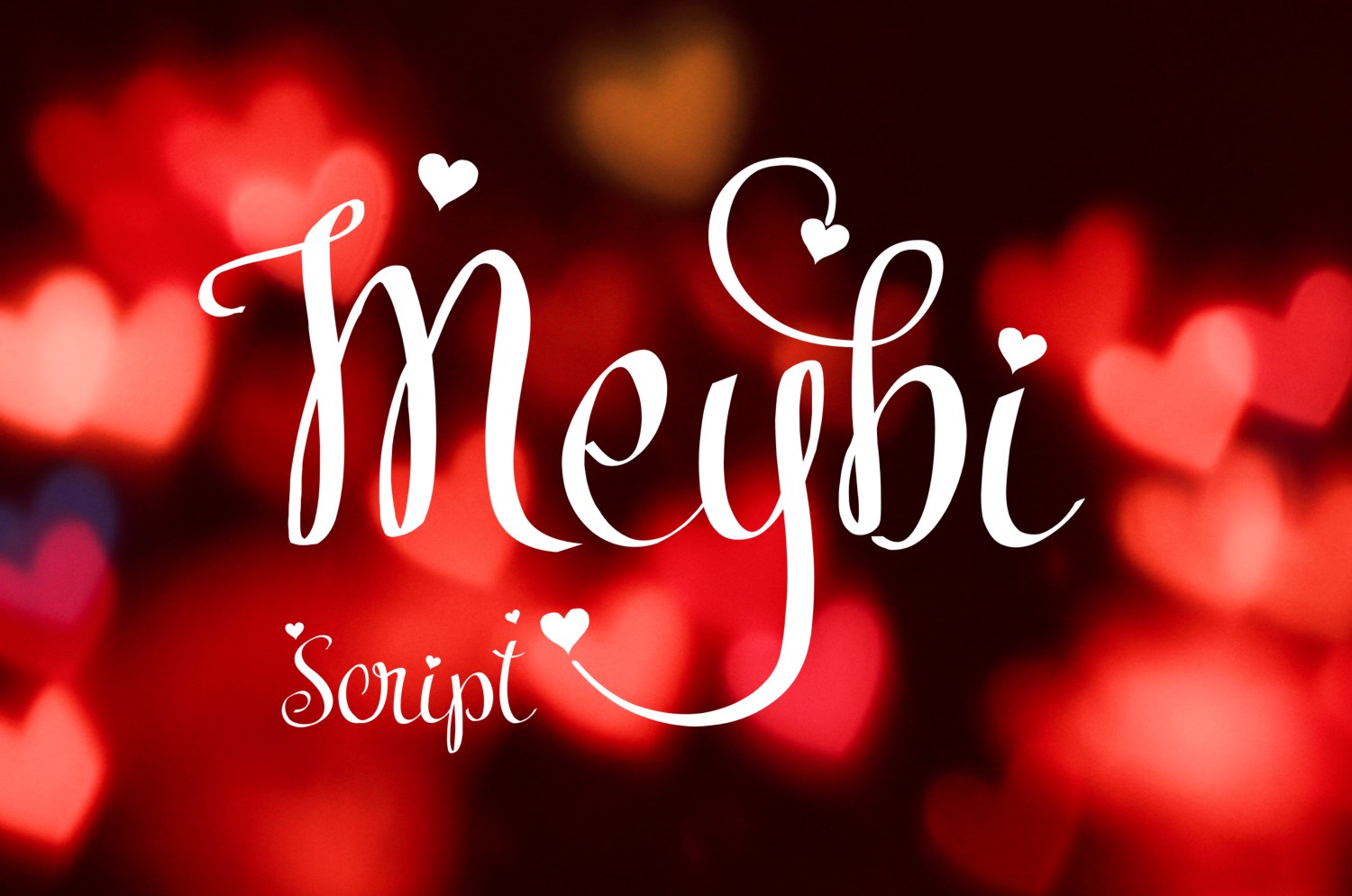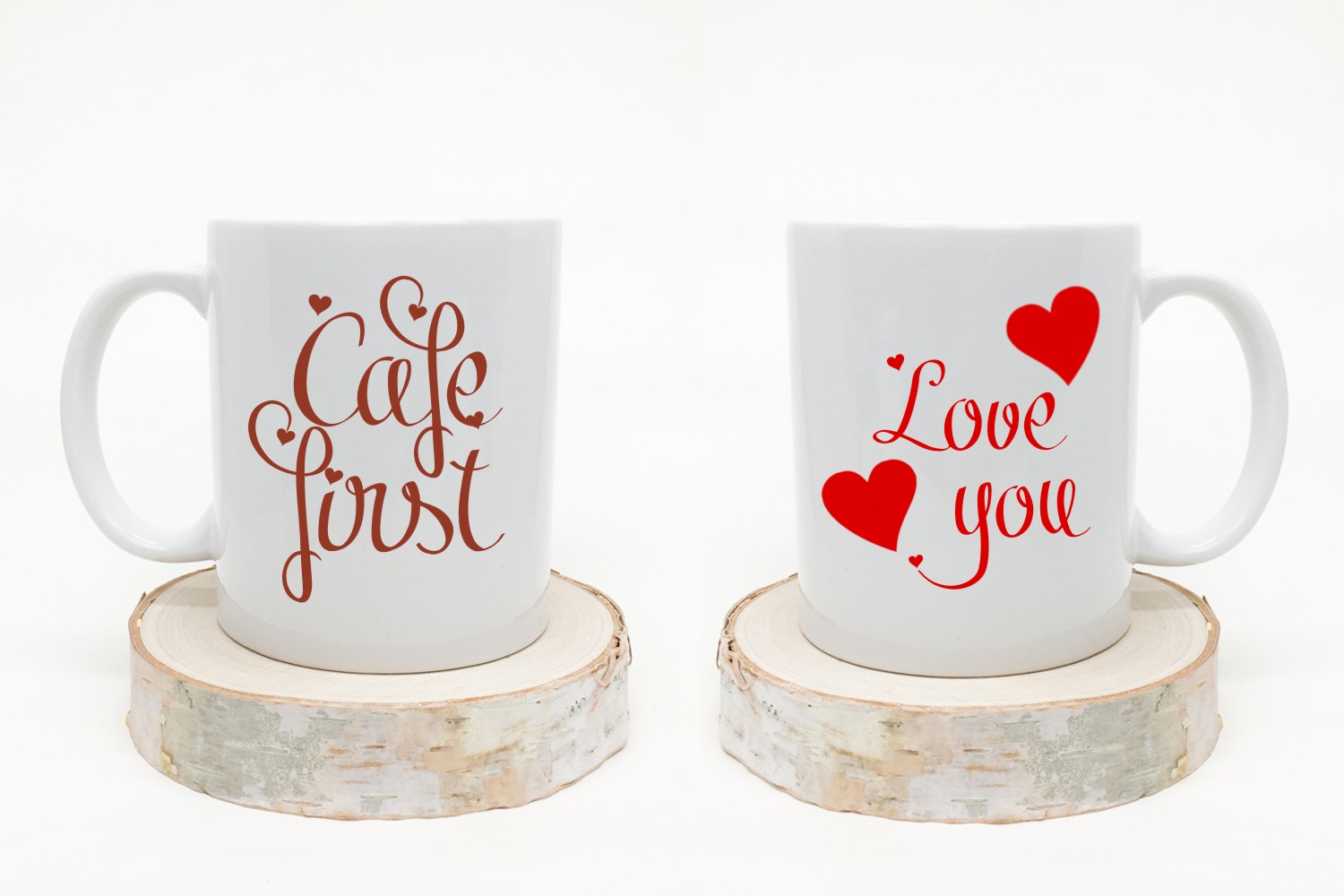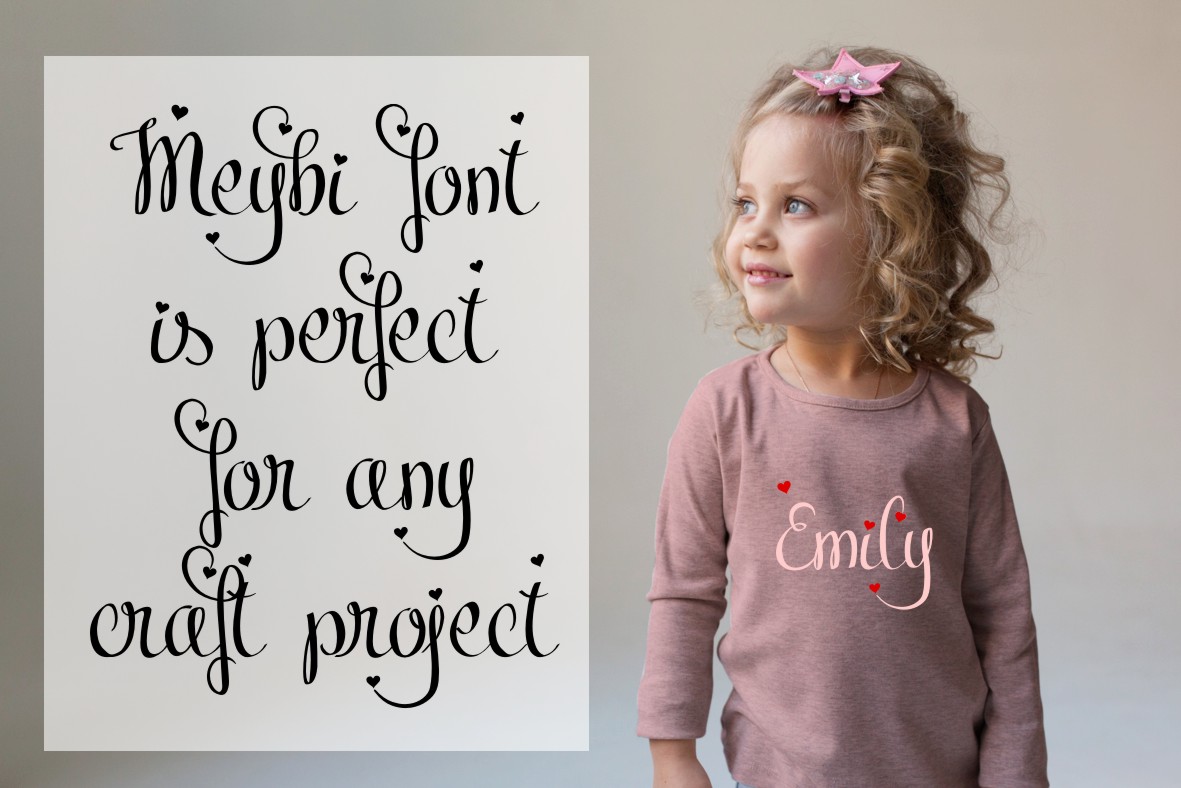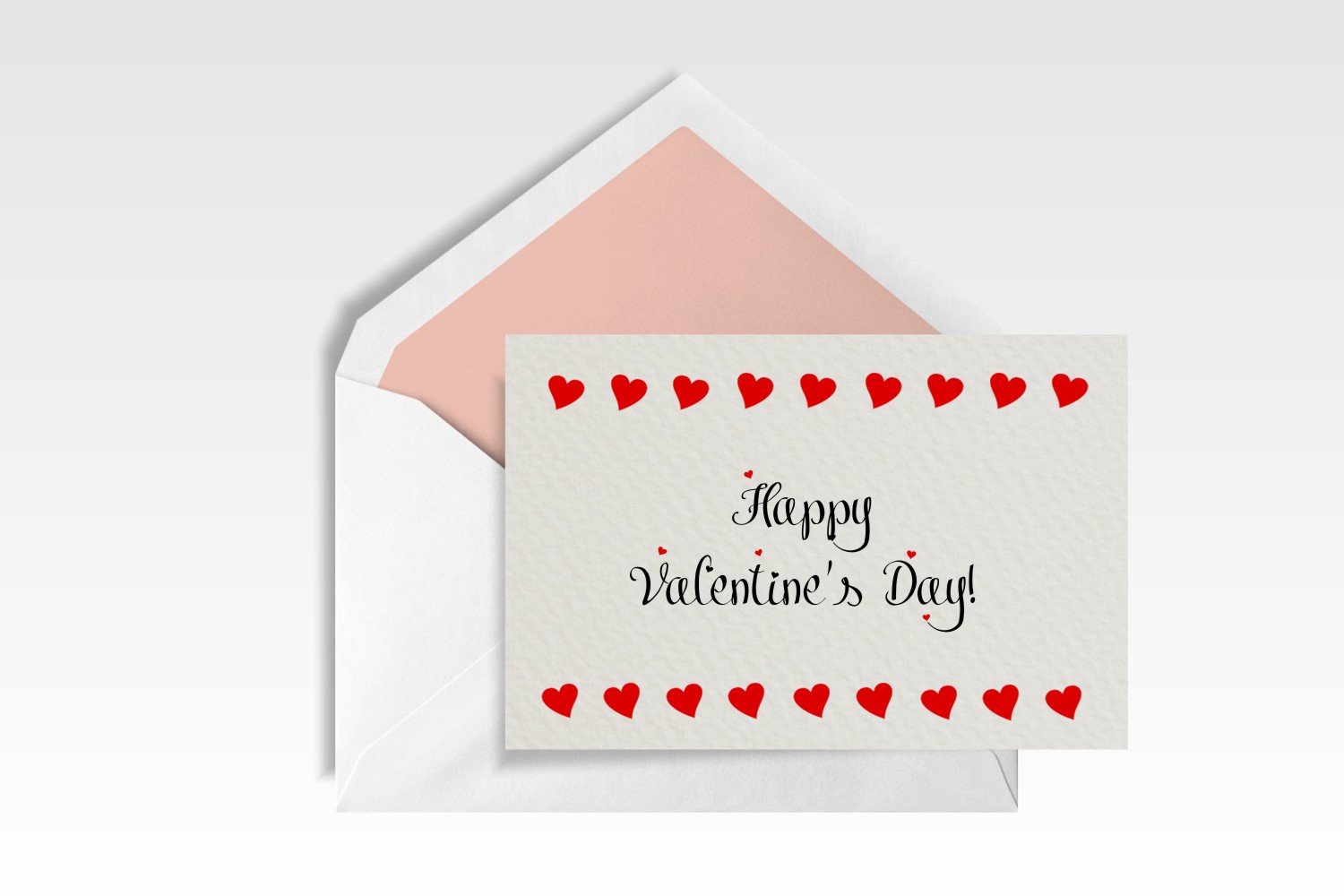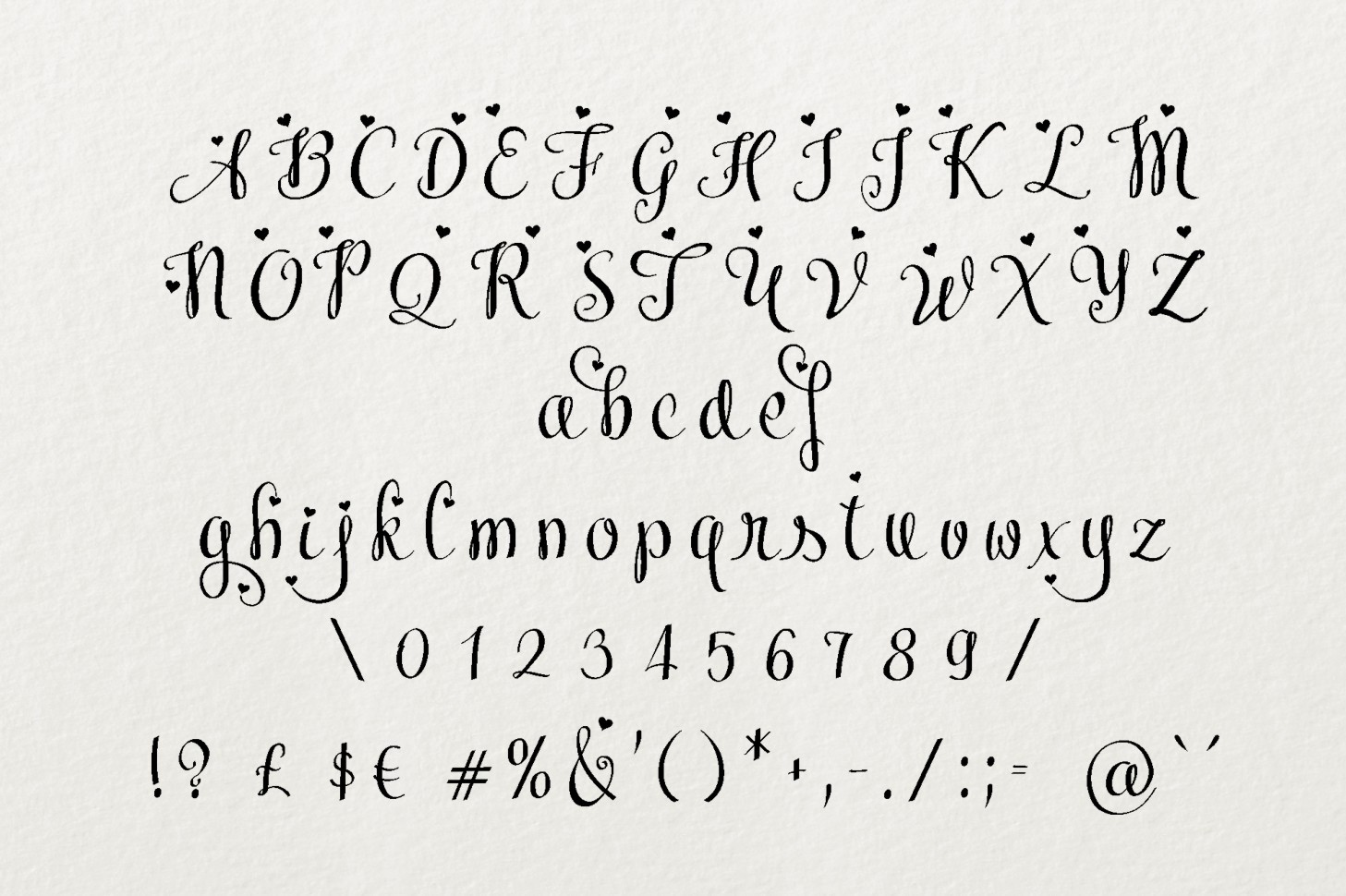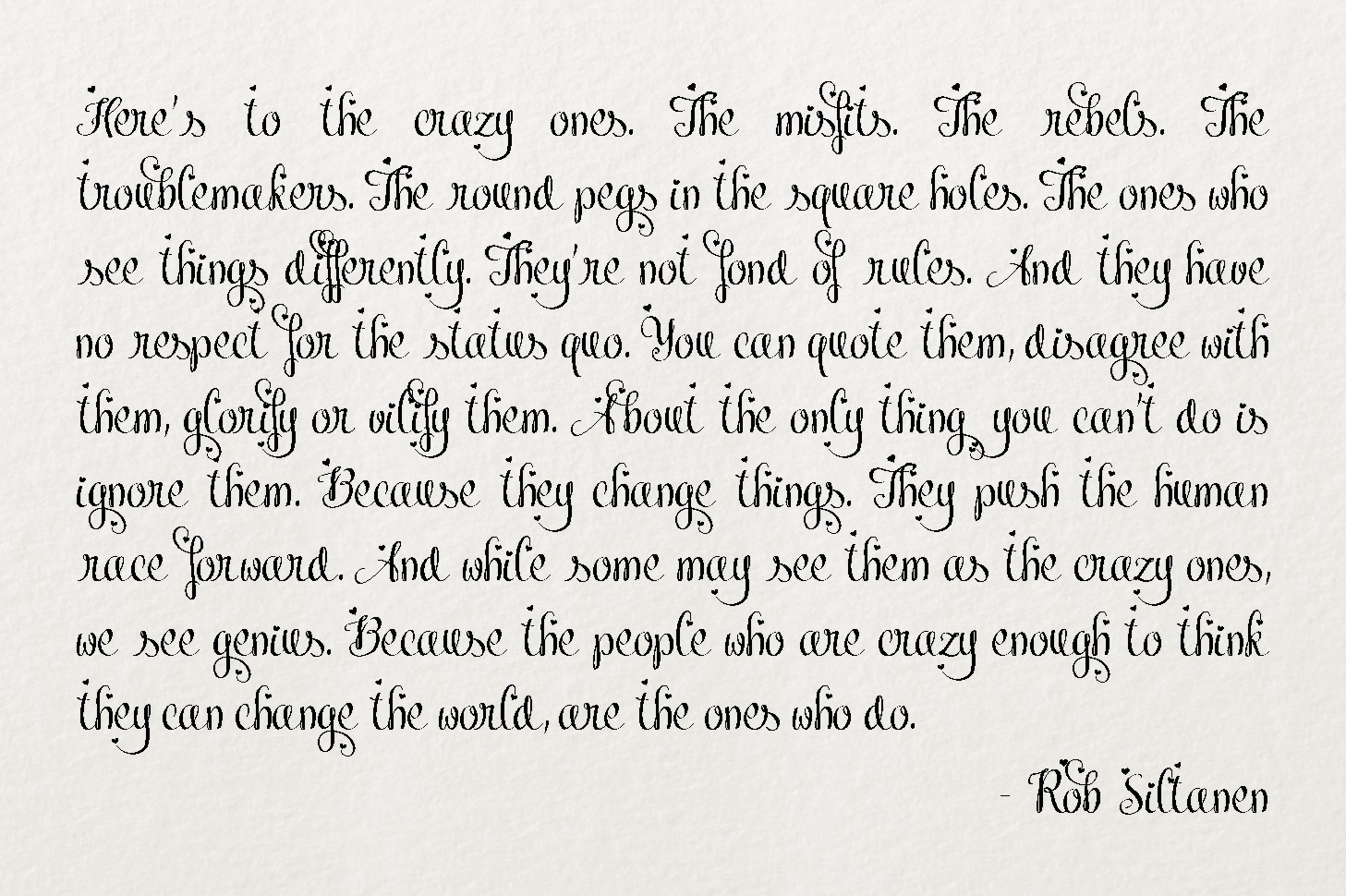
Meybi Font
About Meybi Font
Meybi is a romantic and feminine font, with heart flourishes and curved styling. Perfect for seasonal typographic designs or for romantic, special events!